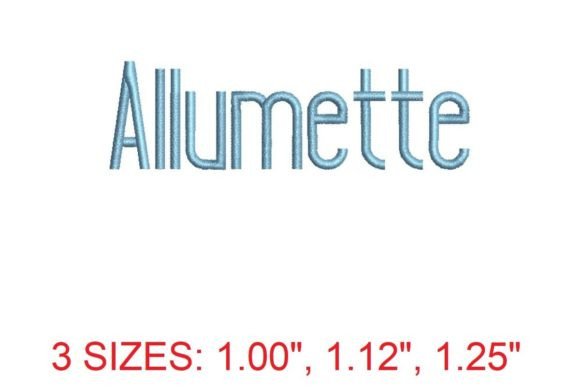
As a seasoned embroidery designer, I’ve evaluated countless machine embroidery designs, but few have captured the balance of elegance and practicality like the Allumette Embroidery Font. Designed for seamless integration with the popular PES file format, this font offers a refined aesthetic that can elevate a simple sweatshirt into a statement piece. For a boutique brand preparing a limited drop, the Allumette Embroidery Font is a compelling choice—especially for Back To School collections where style meets functionality.
First Impressions: Elegance Meets Simplicity
The Allumette Embroidery Font immediately conveys a sense of sophistication. Its clean lines and subtle curves give it a modern, timeless feel. When viewed as a machine embroidery design, it strikes a perfect balance between minimalism and visual interest. The layout is well-proportioned, making it ideal for placement on sweatshirt embroidery, hoodie chest designs, or sleeve accents. The detail level is just right—enough to stand out without overwhelming the fabric or the wearer.
As an embroidery file, the Allumette Embroidery Font has a distinct stitching personality. It’s not overly ornate, but it carries enough texture to make the finished product feel premium. Whether applied to neutral sweatshirts, dark fabric, or pastel colors, it maintains its clarity and charm.
Applications for Sweatshirt Embroidery
When considering how the Allumette Embroidery Font would look on a range of apparel, it’s clear that it adapts well to different styles. On oversized hoodies, it adds a touch of class without being too bold. For cozy seasonal apparel, it feels warm and inviting, blending seamlessly with rustic or playful themes. As a back design, it provides a subtle yet memorable focal point, while as a sleeve accent, it adds a refined edge to casual wear.
For a small shop product or Etsy seller, the Allumette Embroidery Font offers versatility. It works equally well on custom apparel, boutique merchandise, and lifestyle product photography. The design assets are clean enough to create printable mockups, and the font’s simplicity makes it easy to pair with other elements in an Etsy listing.
Practical Considerations for Embroidery Designers
From a technical standpoint, the Allumette Embroidery Font presents several considerations. Thread color contrast is essential—especially when working with dark fabrics. A high-contrast color will ensure the design remains visible and legible. Stitch density is another factor; the font’s structure allows for a moderate density that should work well on most fabrics without causing puckering or distortion.
Stabilizer choice matters, particularly when working with lightweight or stretchy materials. A good tear-away stabilizer can help maintain the integrity of the design during the embroidery process. Fabric texture also plays a role—the Allumette Embroidery Font looks best on smooth, even surfaces, which is common in most sweatshirts and hoodies.
Small-size readability is a concern for any font, but the Allumette Embroidery Font holds up reasonably well. It’s suitable for standard hoop sizes, though larger versions may require a bigger hoop for optimal results. Washing durability is another key point—since this is a commercial embroidery project, the design must withstand repeated washes without losing its shape or clarity.
Impact on Brand Identity and Customer Engagement
For a handmade product or custom apparel brand, the Allumette Embroidery Font can significantly enhance brand identity. Its elegant appearance helps build trust with customers, reinforcing the perception of quality and attention to detail. When used in a boutique brand’s collection, it contributes to visual recognition, making the brand more memorable.
Customer engagement is also influenced by the design’s overall appeal. A well-executed embroidery design like the Allumette Embroidery Font can increase the perceived value of a product, encouraging repeat purchases and word-of-mouth referrals. It’s especially effective for creative entrepreneurs looking to differentiate their offerings in a competitive market.
Final Thoughts: A Versatile Choice for Small Businesses
The Allumette Embroidery Font is a strong contender for small clothing brands, Etsy sellers, and embroidery shops looking for a reliable, stylish option. Its compatibility with PES files ensures it can be used across a range of machines, and its clean, adaptable design makes it suitable for various applications—from hoodie chest placements to back designs.